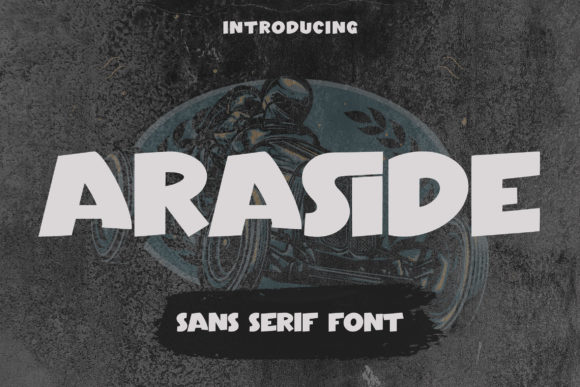
Introducing Araside, the display font that captivates the eye and engages the heart. This bold and trendy font is an ode to playful elegance, bringing a touch of joy and creativity to your designs. With its distinctively friendly and inviting curves, Araside is not just a font; it's an adventure that sparks imagination and invites you to explore a world of boundless possibilities.
Immerse yourself in the whimsical charm of Araside, designed by the talented Arendxstudio especially for those seeking a touch of enchantment in their projects. Whether you're crafting a heartfelt wedding welcome sign, designing an enchanting children's game, or adding a dash of cheer to your brand identity, Araside is your perfect companion.
Born from a love of storytelling and a passion for design, Araside is more than just a set of letters; it's an experience that resonates with your audience. Its meticulously crafted curves and bold strokes evoke a sense of warmth and happiness, making it an ideal choice for any project that aims to connect with hearts.
With Araside, you'll find yourself effortlessly expressing your creativity, whether you're a seasoned designer or just starting your design journey. Its versatility extends across a wide range of projects, from playful cartoon designs to captivating social media posts. Let Araside be your muse, inspiring you to create designs that leave a lasting impression.
So, embark on this creative adventure with Araside, and let your imagination soar. Discover the magic that unfolds when you combine your vision with the captivating allure of Araside. Transform your designs into captivating stories that resonate with your audience, leaving them with a smile on their faces and a renewed sense of wonder.